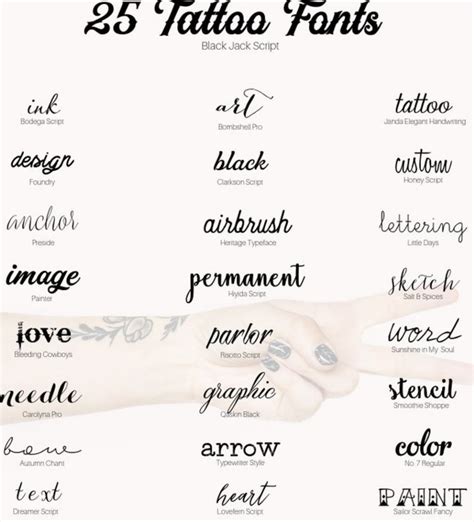
Fortunately, we have many unique tattoo font styles for men and women, such as calligraphy, cursive, and traditional styles. You can use whole words, long quotes, sayings, poems, or lyrics to feature the written script by itself. Popular among couples or best friends, the sun and moon tattoo is a sweet gesture of love, representing the harmony between the two opposite forces. These cursive font tattoos can also be transformed into a variety of shapes (infinity, heart, flower and more).
These cursive font tattoos can also be transformed into a variety of shapes (infinity, heart, flower and more). See more ideas about typewriter font tattoo, tattoos, tattoo fonts. Initial tattoo designs are among the most popular tattoos in the tiny tattoo category. They’re popular among people who are dating or are in love. It also comes with a free ornament.
In this page we’ve put together some really cool cursive font tattoo ideas for your inspiration. You can use whole words, long quotes, sayings, poems, or lyrics to feature the written script by itself. You can use the cursive text generator as cursive font generator, cursive font changer, cursive text maker. « 1 2 3 4 5. In this manner,.
Since tattoo fonts are rarely used to design body and paragraph text, the most common types of tattoo fonts are script and display. In this manner, what’s the best font for a tattoo? It’s a great font for fashion, clothing projects, signature, album cover, logo, branding, magazine, social media, advertising, as well as for your brand new elegant tattoo. If.
Tattoo lettering is a kind of design used in letters and numbers. Input your text, choose one of the tattoo fonts for display, and click generate! 1998 in roman numerals tattoo. Do not miss our most special fonts for your tattoos, drawings, prints, murals. Looking for thin tattoo fonts?
Star typeface tattoo font is classic with 8 creative styles great for modern designs, but also retro with regular and grunge options to choose from. Whether it’s your first piece of ink or a baby step to a full sleeve, a small tattoo can be a killer way to commit to ink. 01 of 30 butterfly wrist tattoo Click to.
Choose a font size that's between 10 and 12. Roman numerals font for tattoo. Click to find the best 142 free fonts in the thin cursive style. As far as size goes, bigger is always better. Star typeface tattoo font is classic with 8 creative styles great for modern designs, but also retro with regular and grunge options to choose.
Roman numerals font for tattoo. It also comes with a free ornament vector! Those fonts were made to be flat, clear legible. 237 free tattoo fonts · 1001 fonts When you have a lot to say the best thing to do is to use a small enough font for space.
Here we have the sabrva font, a classic tattoo typeface that looks great in smaller tattoos, particularly when surrounded by elegant shading and delicate filigree due to the dark, bold brush strokes and crisp, geometrically aligned design. Input your text, choose one of the tattoo fonts for display, and click generate! An initial name tattoo is also a permanent reminder.
Fonts for tattoos, drawings and decorations. Classics (baskerville, futura, garamond) alongside hot new fonts (brice, moneta,novera). See more ideas about small tattoos, tattoo fonts, tattoos. See more ideas about typewriter font tattoo, tattoos, tattoo fonts. Script font for lengthy tattoos.